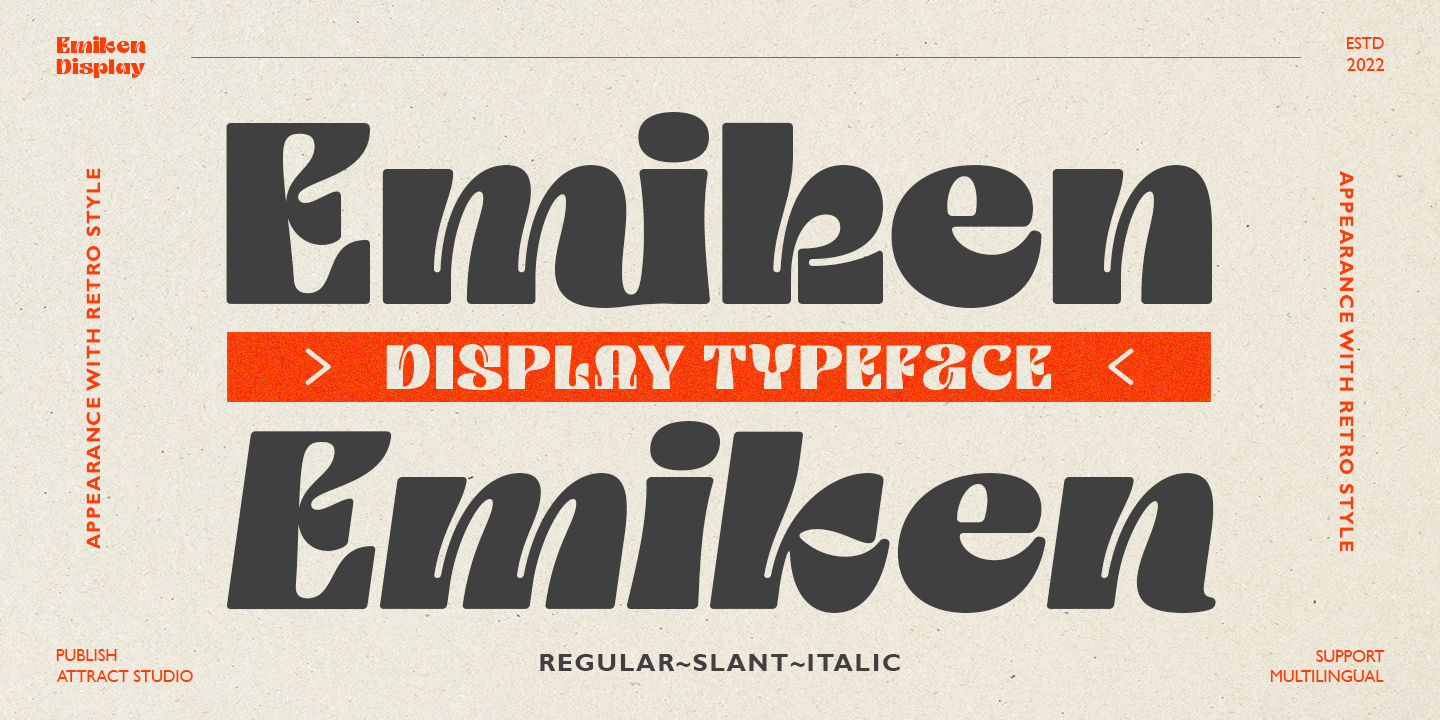
Emiken Display Font is a striking and modern typeface, perfectly designed for impactful headlines and bold statements. Imagine it commanding attention on the cover of a contemporary magazine, providing a powerful visual identity for an innovative tech brand, or adding a sleek, artistic edge to posters for a cultural event. Its strong forms and often unique character details make it exceptionally effective for large-format displays, digital advertisements, and any print media where a strong visual presence and distinct personality are key. From dynamic web banners to high-impact packaging, this font delivers a memorable and visually compelling punch.
What makes Emiken Display Font so exciting is its ability to blend contemporary design principles with a unique, often geometric or even experimental flair. It’s crafted to be noticed, offering a modern aesthetic that can convey innovation, sophistication, or artistic expression. This isn't a font for body text; its strength lies in its ability to transform words into visual art, making your message not just readable but also visually captivating. It projects an image of boldness and originality, making it an ideal choice for brands and projects that want to stand out and leave a lasting impression. Its distinctive structure ensures high legibility, even when used for dramatic effect.
The Emiken Display Font family typically offers a focused range of weights and styles, optimized for its primary role as a display font. While it might not have the extensive variations of a large text family, you can generally expect to find options such as Regular, Medium, and potentially a Bold weight, sometimes accompanied by unique stylistic alternatives or all-caps versions. This curated selection is designed to maximize the font's visual impact and ensure its distinctive character shines through in prominent applications, allowing designers to create compelling headlines and eye-catching designs.